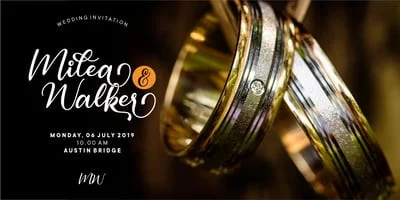
Magelove One Font
Magelove One Font is perfect for romantic design applications including wedding invitations, love-themed branding, Valentine's Day marketing, romantic stationery, couple photography logos, anniversary celebrations, relationship counseling materials, and heartfelt greeting cards. This enchanting typeface captures the magic and warmth of love through flowing letterforms that embody romance, affection, and emotional connection.
What makes Magelove One Font exciting is its beautiful ability to express the magical essence of love and romantic connection through letterforms that dance with emotional warmth and heartfelt charm. The font features graceful curves and tender details that mirror the gentle flow of romantic feelings and intimate moments. Its loving character appeals to audiences who celebrate relationships, emotional connections, and the transformative power of love.
The Magelove One Font family includes various romantic styles such as Regular, Light, Bold, and decorative alternates with heart-inspired flourishes that enhance the love-themed aesthetic. These tender options provide comprehensive design solutions for creating authentic romantic brand identities that celebrate love stories and meaningful relationships.
This distinctive romantic typeface brings genuine emotional authenticity to contemporary design projects. Wedding professionals and relationship-focused brands choose Magelove One Font for its exceptional ability to communicate love and romantic sophistication. The font's magical inspiration makes it perfect for wedding planners, romantic venues, and love-themed businesses that want to convey emotional warmth and romantic elegance. Its heartfelt character ensures memorable brand recognition while maintaining the authentic aesthetic that defines exceptional romance-focused design work.